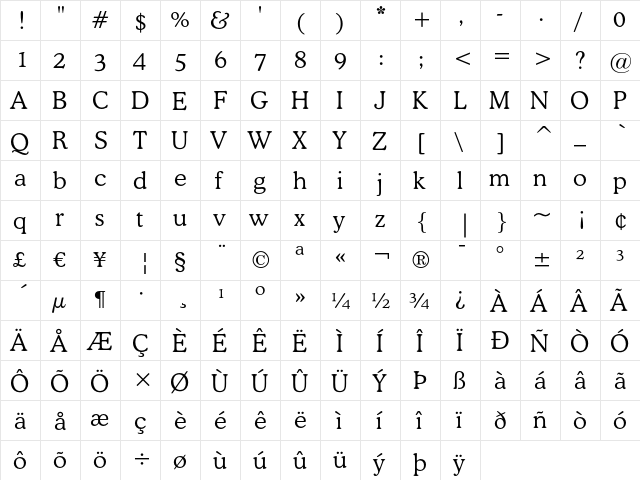
Bitstream Cooper Light Font Preview
Bitstream Cooper Light
Bitstream Cooper Light Font Details
Design Context for Bitstream Cooper Typeface
Bitstream Cooper takes a measured approach to typography — its balanced proportions and neutral character make it a reliable workhorse for both digital and print work. Its slender proportions lend an understated elegance to any composition.